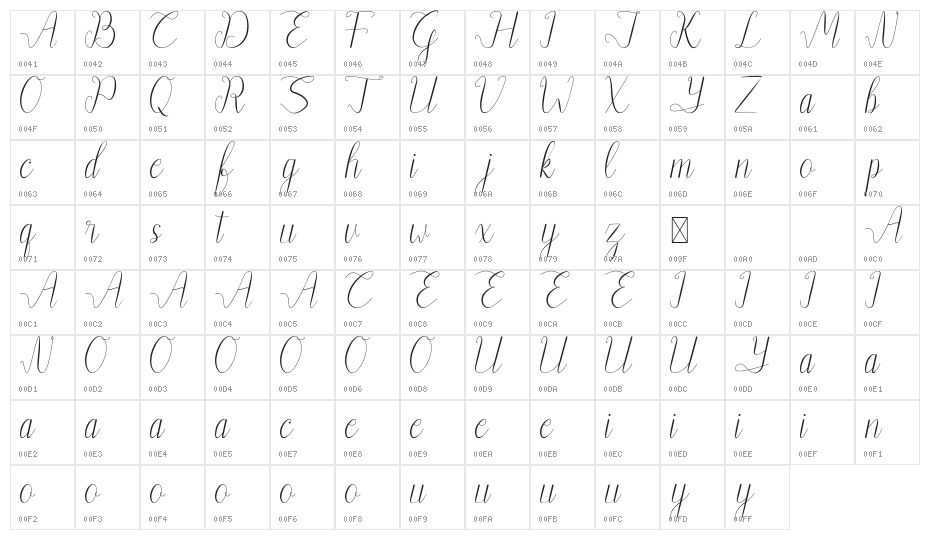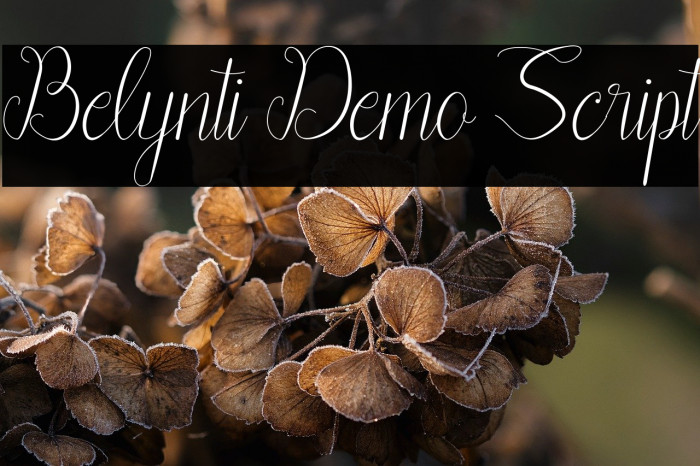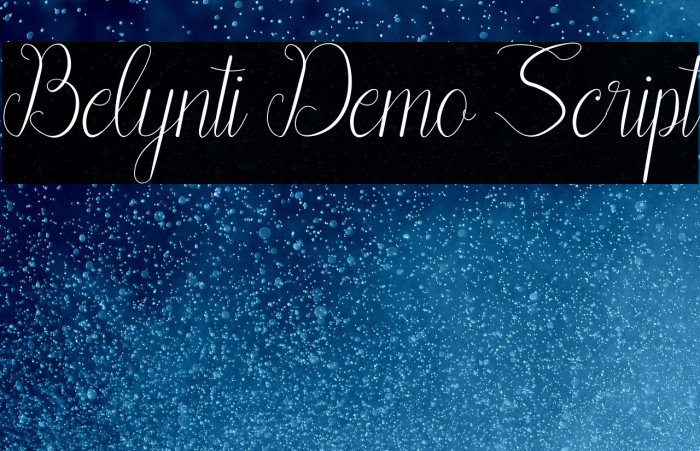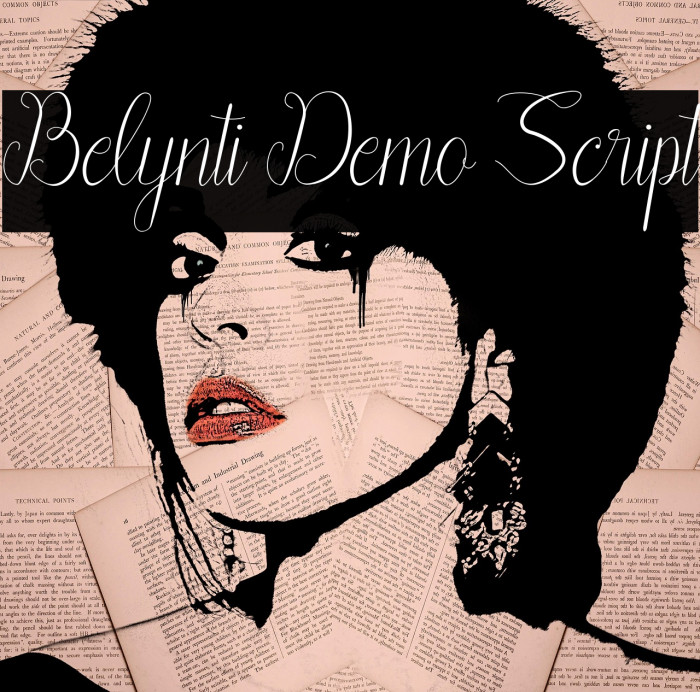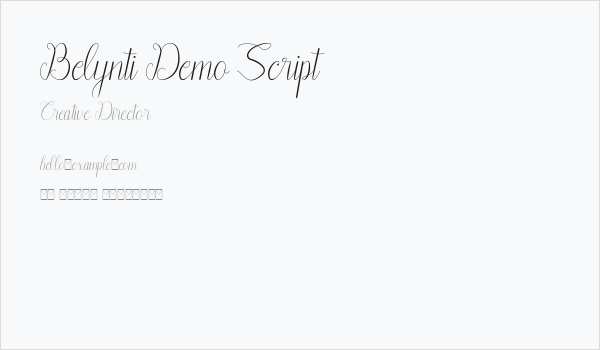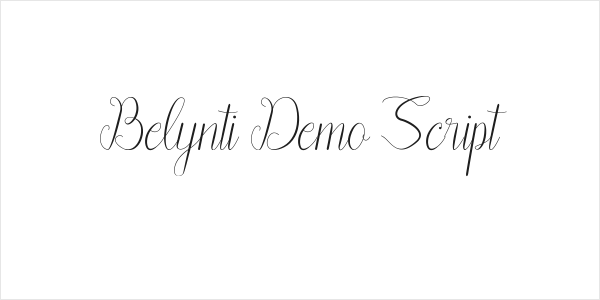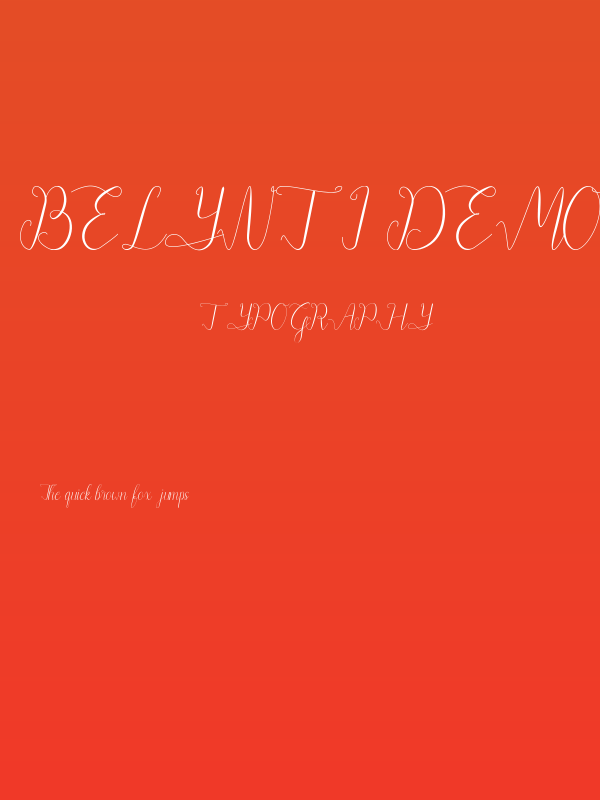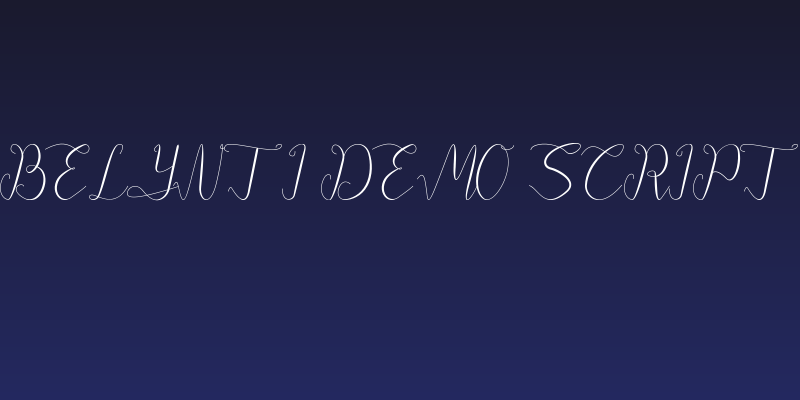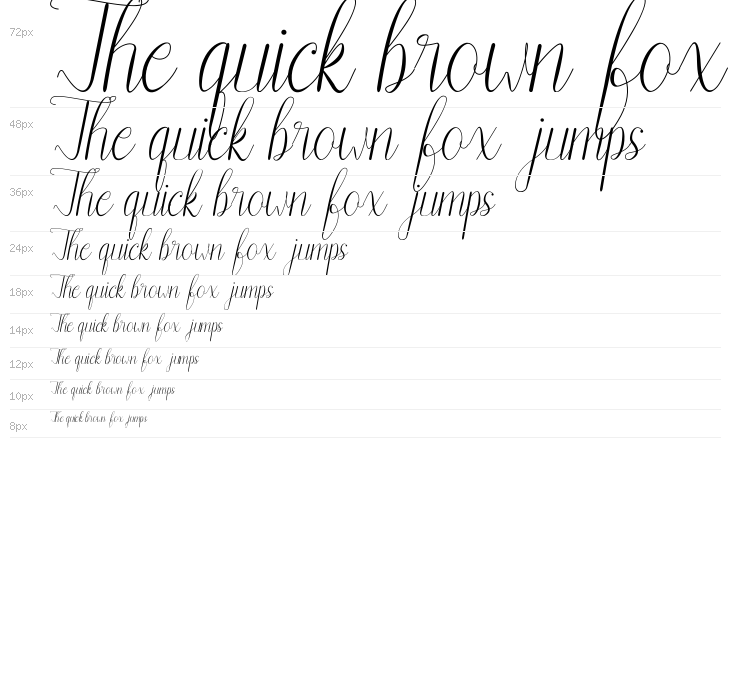
Belynti Demo Script Font
Belynti Demo Script Description
This elegant script font features a flowing, cursive style with intricate loops and swashes that give it a sophisticated and artistic appearance. The uppercase letters are characterized by tall, slender forms with extended ascenders and descenders, adding a sense of grace and movement. The lowercase letters maintain a consistent flow, with smooth connections between characters, enhancing the font's readability despite its decorative nature. The numerals and special characters are designed to complement the overall style, maintaining the same fluidity and elegance. This font is ideal for projects that require a touch of class and creativity.
| Proposed Projects | Ideal for wedding invitations, elegant branding, artistic posters, and decorative headings. |